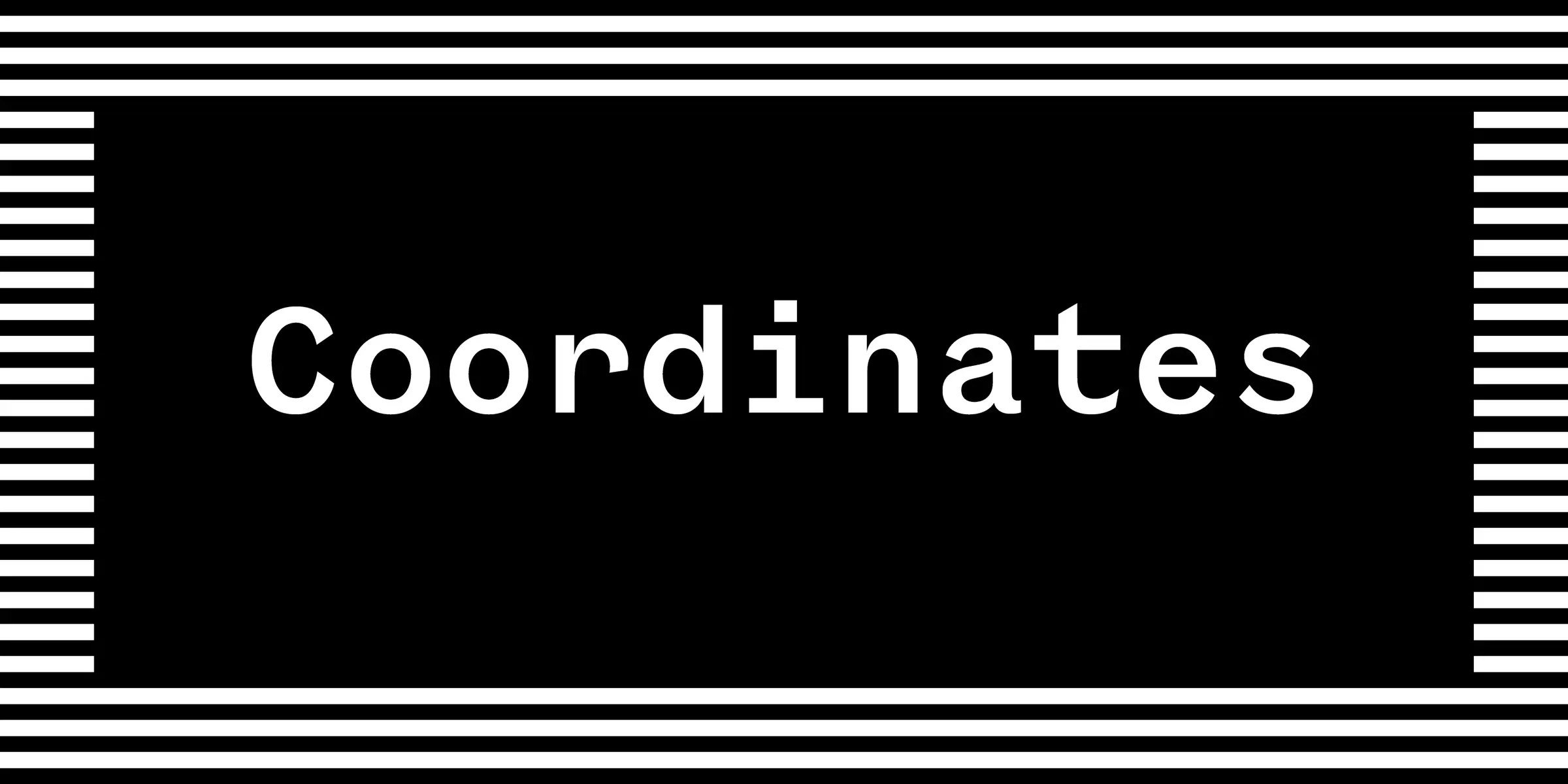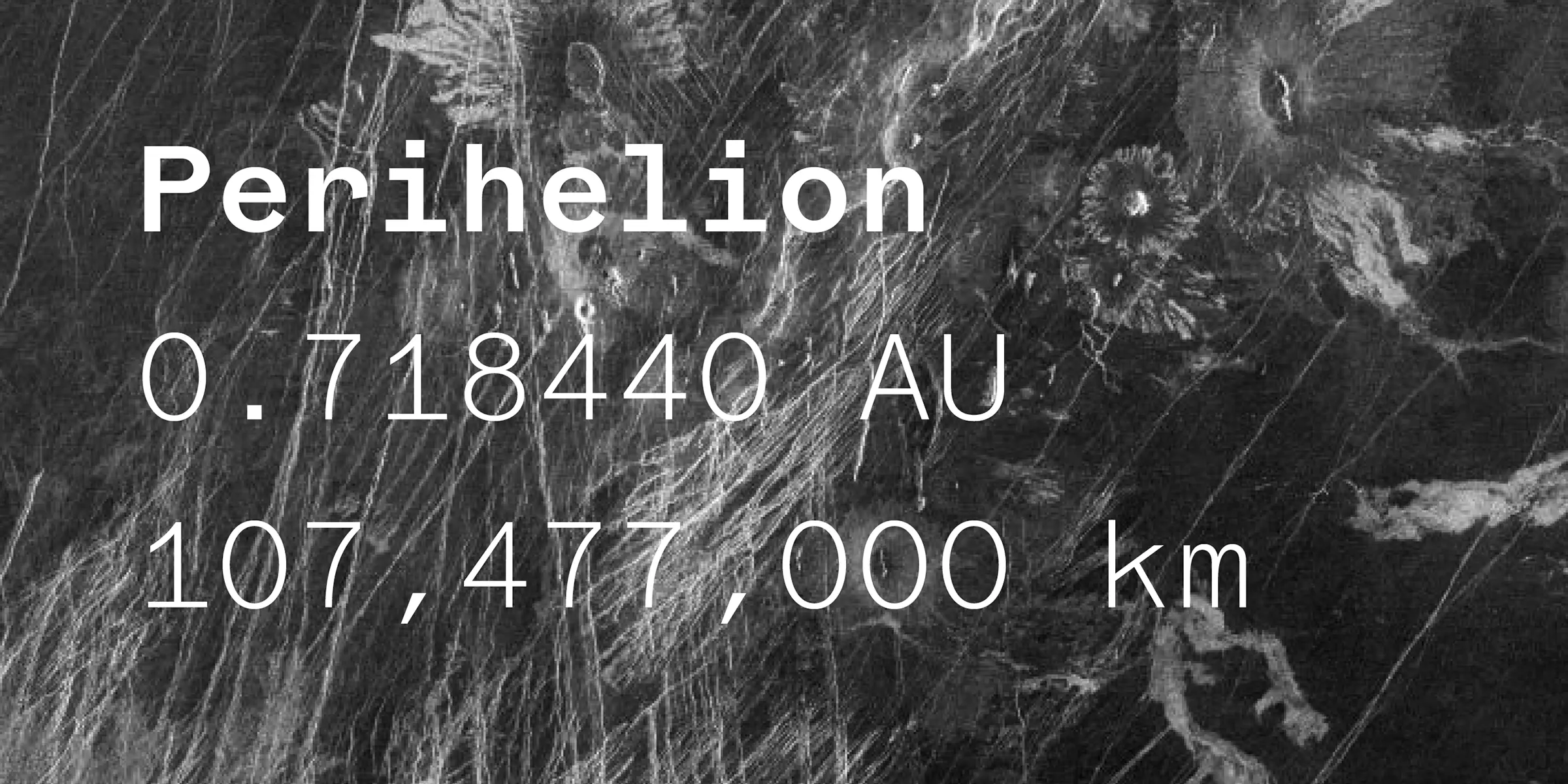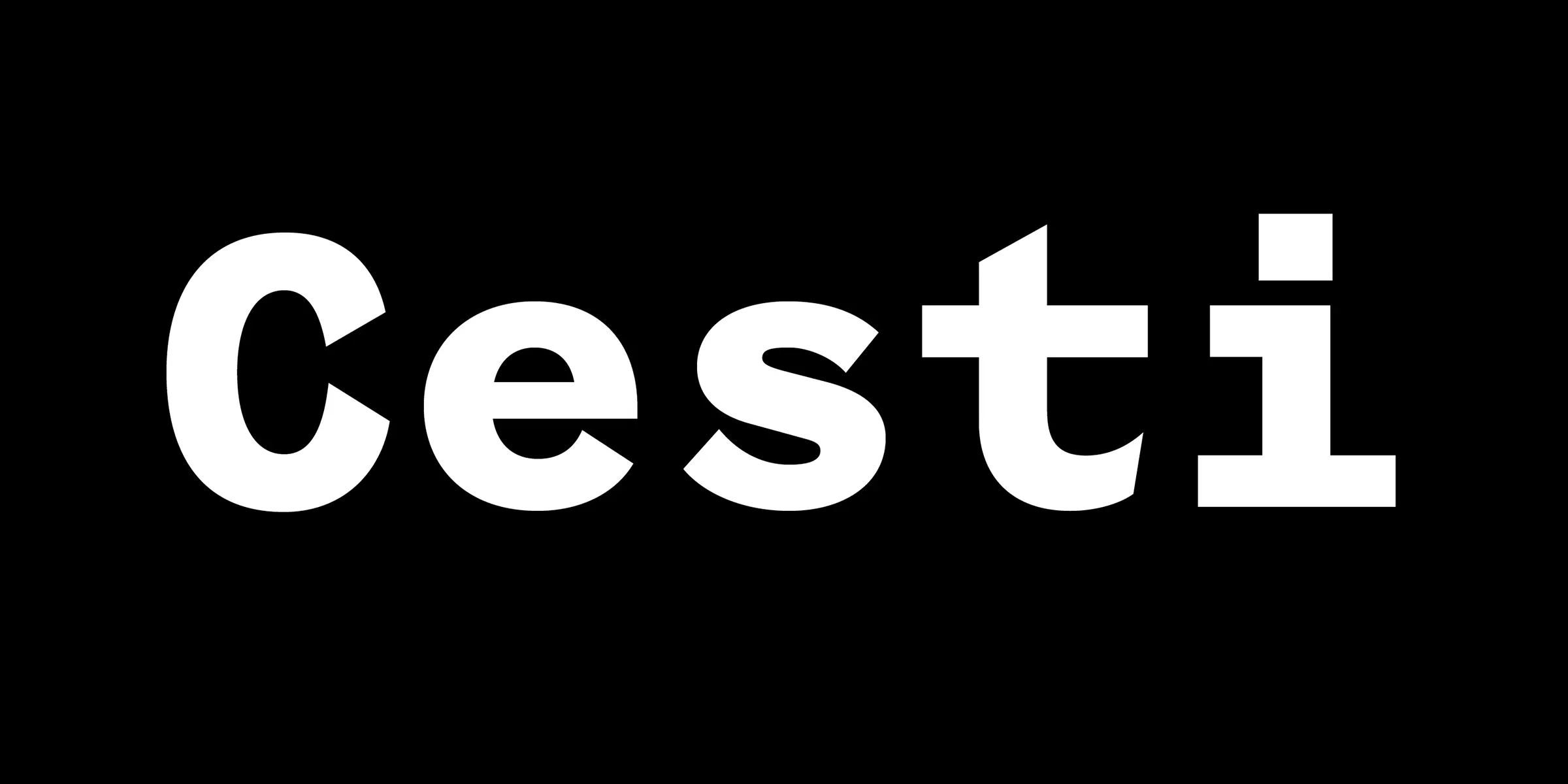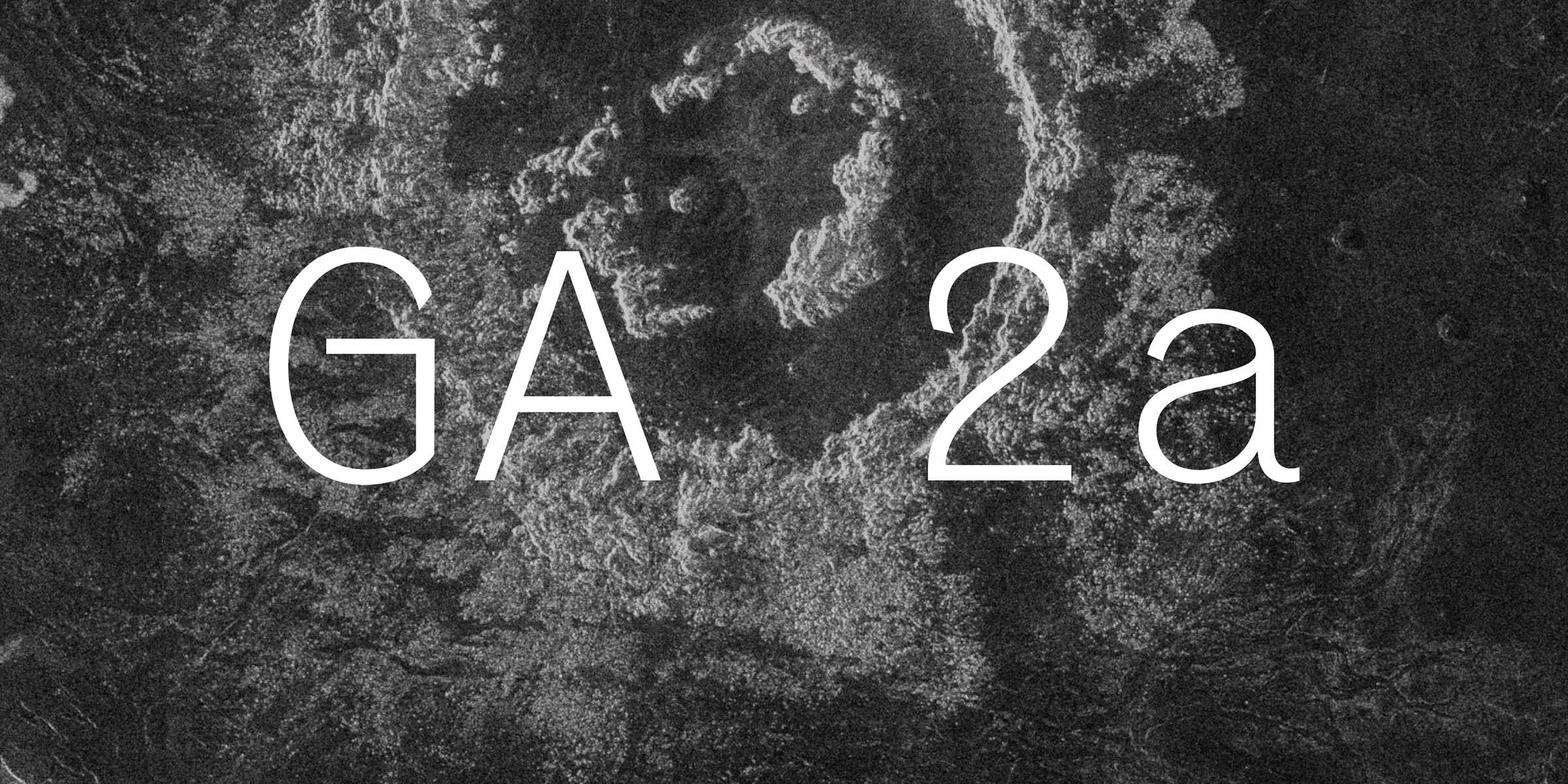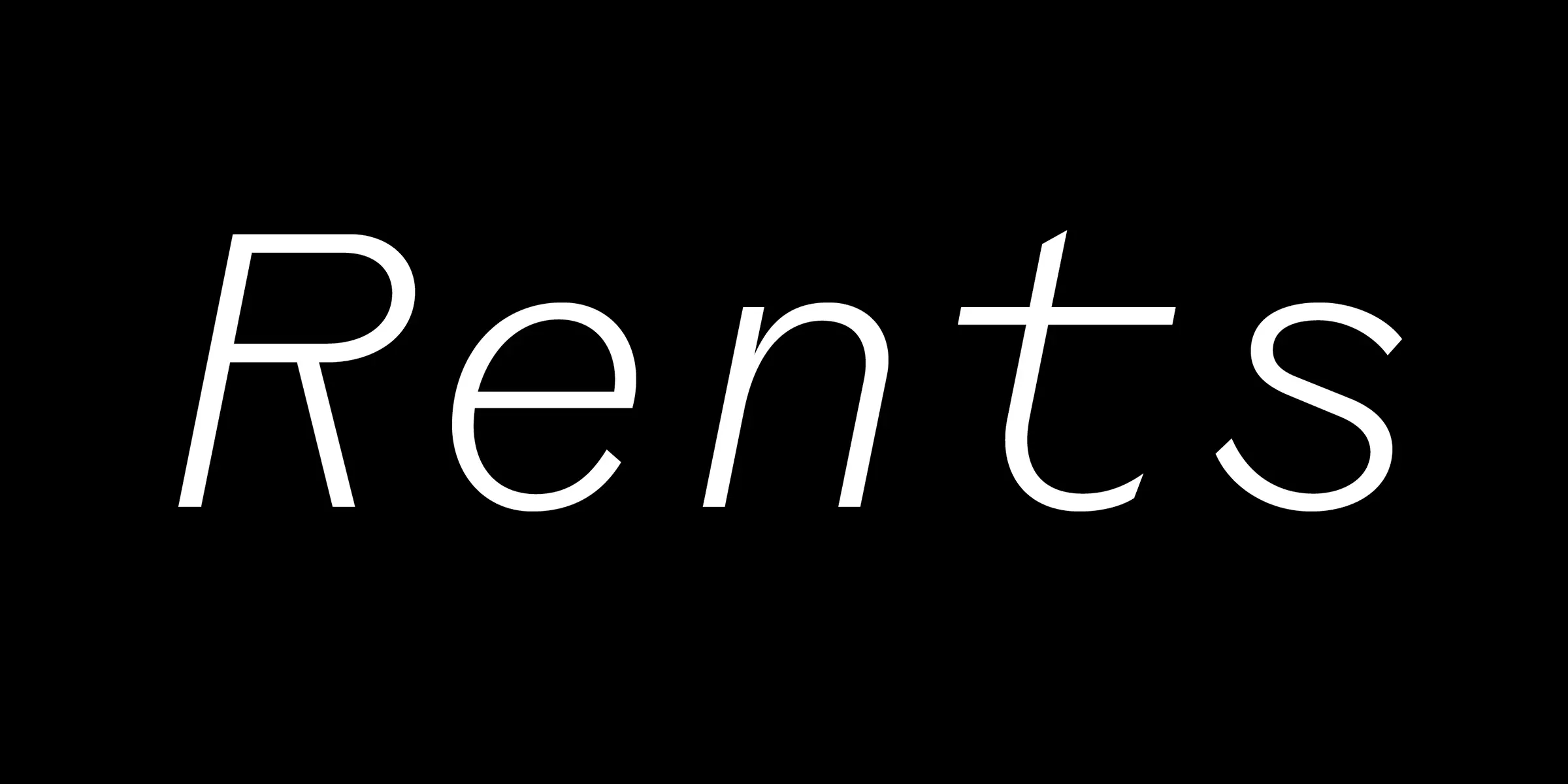
Coordinates Details
Coordinates is a monospaced tribute to Venus, the early 20th century typeface issued by the Bauer Type Foundry. A collection of disparate formal themes, Coordinates combines influences from Grotesque and Art Nouveau typefaces — as Venus does — and merges them into the constraints of a monospace framework. The family consists of 5 weights with matching italics for each.
OpenType Features
- Common Ligatures
- Fractions